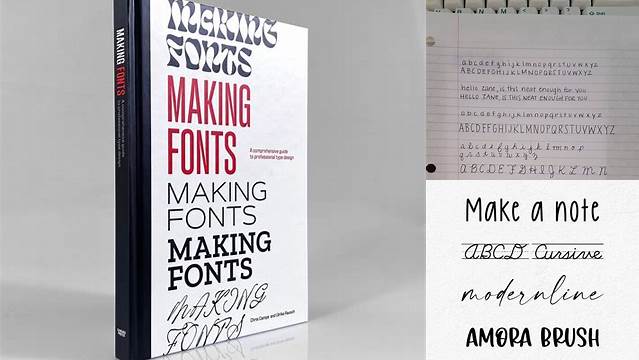
Handwriting Fonts: Styles, Uses, And How To Choose
Have you ever wondered about the magic behind handwriting fonts? They bring a personal and authentic touch to any design, making your words feel more human and relatable. In this comprehensive guide, we'll delve into the fascinating world of handwriting fonts, exploring their history, types, uses, and how to choose the perfect one for your project. Whether you're a designer, a writer, or simply a font enthusiast, this article will equip you with the knowledge to appreciate and effectively use these unique typefaces.
What are Handwriting Fonts?
Handwriting fonts, guys, are essentially typefaces that mimic the style of human handwriting. Unlike traditional fonts that are typically geometric and uniform, handwriting fonts embrace the irregularities and imperfections that make handwriting so distinctive. These fonts can range from elegant and flowing scripts to casual and quirky print styles, capturing the essence of different handwriting styles. They're designed to evoke a sense of warmth, personality, and authenticity, making them a popular choice for projects that require a personal touch.
The beauty of handwriting fonts lies in their ability to connect with the reader on an emotional level. When we see a handwriting font, we subconsciously associate it with a human hand, a human thought, and a personal message. This connection makes them incredibly effective for invitations, greeting cards, logos, branding materials, and websites that aim to create a friendly and approachable image. Handwriting fonts can transform a sterile digital environment into a warm and inviting space, fostering a sense of connection and trust with the audience. For instance, a handwritten font used in a bakery's logo can evoke feelings of homemade goodness and artisanal quality, while a handwritten font on a wedding invitation adds a touch of romance and intimacy. The versatility of handwriting fonts allows them to be adapted to a wide range of applications, making them a valuable tool in the designer's arsenal.
But, you know, it's not just about the aesthetic appeal. The choice of a handwriting font can also significantly impact the readability and accessibility of your text. Some handwriting fonts, while beautiful, can be challenging to read if they are too ornate or have inconsistent letterforms. Therefore, it's crucial to consider the context and audience when selecting a handwriting font. A playful and informal font might be perfect for a children's book, but it may not be suitable for a professional business document. Similarly, an elegant script font could add a touch of sophistication to a wedding invitation, but it might be too formal for a casual email. The key is to strike a balance between visual appeal and readability, ensuring that your message is not only beautiful but also easily understood. In the following sections, we'll explore the various types of handwriting fonts and provide guidance on how to choose the right one for your specific needs.
The History and Evolution of Handwriting Fonts
To truly appreciate handwriting fonts, it's helpful to understand their history and evolution. The story of these fonts is intertwined with the history of writing itself. Before the advent of printing, all written communication was done by hand, resulting in a diverse range of handwriting styles. From the elegant calligraphy of medieval manuscripts to the practical cursive of business letters, handwriting was the primary means of recording and sharing information. When printing technology emerged, type designers initially sought to emulate the look and feel of handwritten text. Early typefaces, such as those used by Gutenberg, were heavily influenced by the formal scripts of the time. This desire to replicate the human touch in print laid the foundation for the development of handwriting fonts as we know them today.
As printing technology advanced, so did the sophistication of type design. The Industrial Revolution brought about new methods of type production, allowing for greater variety and experimentation. In the 19th and 20th centuries, type designers began to explore more informal and expressive handwriting styles, inspired by the everyday handwriting of individuals. This period saw the emergence of numerous script and casual fonts that captured the personality and character of different handwriting styles. The invention of phototypesetting and digital typography further expanded the possibilities for handwriting fonts. Designers could now create typefaces with unprecedented detail and nuance, capturing the subtle variations and imperfections that make handwriting so unique. The digital age has also democratized font design, with numerous tools and platforms available for individuals to create their own handwriting fonts.
Today, handwriting fonts are widely used in a variety of applications, from digital design to print media. They have become an integral part of the designer's toolkit, offering a versatile way to add a personal touch to any project. The evolution of handwriting fonts reflects the ongoing desire to bridge the gap between technology and human expression. While technology provides the means to create and reproduce typefaces, the inspiration for these fonts ultimately comes from the human hand. The future of handwriting fonts is likely to be shaped by ongoing technological advancements, such as variable font technology, which allows for even greater customization and expressiveness. As designers continue to explore the possibilities of digital typography, handwriting fonts will undoubtedly play a crucial role in shaping the visual landscape of communication. Understanding this history provides a valuable context for appreciating the artistry and craftsmanship behind these fonts and informs how we can use them effectively in our own work.
Types of Handwriting Fonts
Handwriting fonts, you see, aren't just one big category; they come in a whole bunch of styles, each with its own vibe and best use cases. To help you navigate this diverse world, let's break down the main types of handwriting fonts. We've got everything from elegant scripts to playful print styles, so you're sure to find something that speaks to your project's needs.
- Script Fonts: These are the fancy ones, mimicking the flowing strokes of calligraphy and cursive handwriting. Think wedding invitations, elegant logos, and anything that needs a touch of sophistication. Script fonts can range from formal and traditional to modern and whimsical, but they all share a sense of elegance and grace. They often feature connecting letters and elaborate swashes, adding to their visual appeal. However, it's important to use script fonts sparingly, as they can be challenging to read in large blocks of text. They're best suited for headlines, titles, and short phrases where their beauty can truly shine. Examples include Brush Script, Pacifico, and Lobster.
- Casual Fonts: Casual fonts are more relaxed and informal, resembling everyday handwriting. They're perfect for projects that need a friendly and approachable feel, like blog headers, social media graphics, and marketing materials. These fonts often have a hand-drawn quality, with slightly uneven lines and letterforms that add to their charm. Casual fonts are generally more legible than script fonts, making them suitable for longer paragraphs of text. They convey a sense of authenticity and personality, making them a great choice for brands that want to connect with their audience on a personal level. Think about fonts like Comic Sans MS (used sparingly, please!), Amatic SC, and Indie Flower.
- Print Fonts: Print fonts mimic the blocky, disconnected letters of printed handwriting. They're great for projects that need a clean and legible look, like children's books, educational materials, and technical documents. Print fonts are typically more geometric and uniform than other handwriting fonts, making them easier to read in large amounts of text. They often have a childlike quality, making them a popular choice for designs targeted at children. Examples include KG Primary Penmanship, Schoolbell, and Permanent Marker.
- Calligraphy Fonts: Calligraphy fonts are inspired by the art of calligraphy, featuring elegant strokes and flourishes. These fonts are often used for formal occasions, such as wedding invitations, certificates, and diplomas. They require a high level of skill and craftsmanship to create, and they can add a touch of luxury and sophistication to any design. Calligraphy fonts are typically more ornate than script fonts, with elaborate letterforms and decorative details. They're best used sparingly, as they can be challenging to read in large blocks of text. Think about fonts like Zapfino, Edwardian Script, and Great Vibes.
How to Choose the Right Handwriting Font
Okay, so you know the types, but how do you actually pick the perfect handwriting font for your project? It's not just about grabbing the prettiest one; you've got to consider a few key things to make sure your font is doing its job. Here's a breakdown of the factors to keep in mind when choosing a handwriting font:
- Project Purpose: What's the goal of your project? Is it a formal invitation, a casual blog post, or a professional business presentation? The purpose of your project will dictate the overall tone and style, which in turn will influence your font choice. For formal occasions, an elegant script or calligraphy font might be appropriate. For casual projects, a relaxed casual or print font would be a better fit. For business presentations, you'll want a font that is both professional and legible, such as a clean print font or a modern script font. Understanding the purpose of your project is the first step in narrowing down your font options. For example, a fun, playful font would be perfect for a children's birthday invitation, but totally out of place on a corporate report.
- Target Audience: Who are you trying to reach? A font that appeals to children might not resonate with a business audience, and vice versa. Consider the age, demographics, and interests of your target audience when selecting a handwriting font. A youthful and energetic font might be suitable for a teenage audience, while a more sophisticated font would be appropriate for an older demographic. It's also important to consider the cultural background of your audience, as certain fonts may have different connotations in different cultures. Knowing your audience helps you choose a font that speaks directly to them. If you're designing a website for a luxury brand, you'd probably avoid a cartoonish, childish font and opt for something more elegant and refined.
- Readability: This is huge! A beautiful font is useless if people can't read it. Make sure your chosen font is legible, especially for longer passages of text. Ornate script fonts, while visually appealing, can be challenging to read in large blocks. Casual and print fonts are generally more legible, but it's still important to test them in different sizes and contexts. Consider the letter spacing, line height, and overall clarity of the font. If your message is hard to decipher, it's not going to connect with your audience, no matter how pretty it looks. Always prioritize readability, especially in body text.
- Font Pairing: How will the handwriting font work with other fonts in your design? Choosing complementary fonts is crucial for creating a cohesive and visually appealing design. Consider pairing a handwriting font with a simple sans-serif or serif font for the body text. This creates a contrast that makes the handwriting font stand out while ensuring readability. Avoid using too many different fonts in a single design, as this can create a cluttered and confusing look. A general rule of thumb is to stick to two or three fonts at most. Think of it like a musical duet – the fonts should harmonize, not clash.
- Font Licensing: Always, always check the licensing terms before using a font, especially for commercial projects. Some fonts are free for personal use but require a license for commercial use. Using a font without the proper license can lead to legal issues, so it's essential to do your research. Many websites offer free fonts, but it's important to ensure that they come with the appropriate license for your intended use. If you're unsure, it's always best to purchase a commercial license to protect yourself. This is a crucial, often overlooked step, but it can save you a lot of trouble down the line.
Best Practices for Using Handwriting Fonts
Alright, you've picked your perfect font – congrats! But the job's not quite done. Knowing how to use handwriting fonts effectively is just as important as choosing the right one. You wouldn't wear a ballgown to the gym, right? Same goes for fonts – context is key. Here are some best practices to keep in mind:
- Use Sparingly: Handwriting fonts are like spices – a little goes a long way. Overusing them can make your design look cluttered and overwhelming. Reserve them for headlines, titles, logos, and short phrases where they can make a strong impact without sacrificing readability. Avoid using handwriting fonts for large blocks of text, as they can be tiring to read. Think of them as accents rather than the main course. A splash of handwritten flair can add personality, but too much can overwhelm the palate.
- Consider Contrast: Ensure there's enough contrast between the font color and the background. This is especially important for script fonts, which can be difficult to read if the contrast is too low. Use dark fonts on light backgrounds or vice versa to ensure optimal readability. Avoid using colors that are too similar, as this can make the text blend into the background. Contrast is your friend when it comes to making your message clear and impactful. Think about how a handwritten note stands out on a crisp white page – that's the level of contrast you're aiming for.
- Mind the Kerning and Leading: Kerning (the space between letters) and leading (the space between lines) can significantly impact the readability of a font. Adjust these settings as needed to ensure that the text is easy to read. Some handwriting fonts may require more generous kerning and leading than traditional fonts. Pay attention to the overall spacing and make sure that the letters and lines are not too crowded or too far apart. Proper kerning and leading can make a world of difference in the visual appeal and readability of your design. It's the fine-tuning that takes your work from good to great.
- Test in Different Sizes: A font that looks great at a large size might not be legible at a smaller size. Always test your chosen font in different sizes to ensure that it remains readable. This is particularly important for script fonts, which can become difficult to read when scaled down. Print out samples or view your design on different devices to get a sense of how the font will look in various contexts. What looks stunning on a billboard might be a blurry mess on a business card. Testing ensures that your font is versatile and effective across all mediums.
- Embrace the Imperfections: Part of the charm of handwriting fonts is their imperfections. Don't be afraid to let the font's natural quirks shine through. Avoid trying to make it look too perfect or uniform, as this can detract from its authenticity. Hand-drawn fonts are meant to look, well, hand-drawn. The slight variations in line weight, the occasional wobble, the unique character of each letter – these are the qualities that make handwriting fonts so special. Embrace the human touch and let your font tell its story.
So there you have it, folks! We've journeyed through the wonderful world of handwriting fonts, from their history and types to how to choose and use them effectively. Handwriting fonts are a powerful tool for adding personality, warmth, and authenticity to your designs. They allow you to connect with your audience on a personal level, creating a sense of trust and engagement. Whether you're designing a logo, creating a website, or crafting a marketing campaign, a well-chosen handwriting font can make all the difference. Remember to consider your project's purpose, target audience, and readability when selecting a font. Use them sparingly, mind the contrast, and don't be afraid to embrace the imperfections that make them unique. With these tips in mind, you'll be well on your way to mastering the art of handwriting fonts and creating designs that truly stand out. Now go forth and make your mark (in a beautifully handwritten way, of course)!